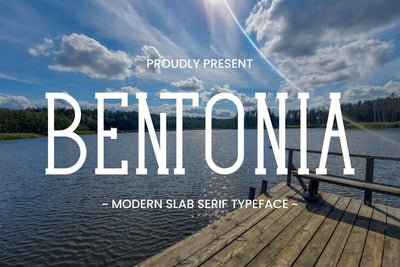
Bentonia - Modern Slab Serif Font
Hi, Introducing Bentonia - Modern Slab Serif Font
Modern Slab Serif Font with a gentle, vintage and manly style. This font is cool for totebags, quotes, pillows, logotypes, hoodies, headlines, overlays, etc.